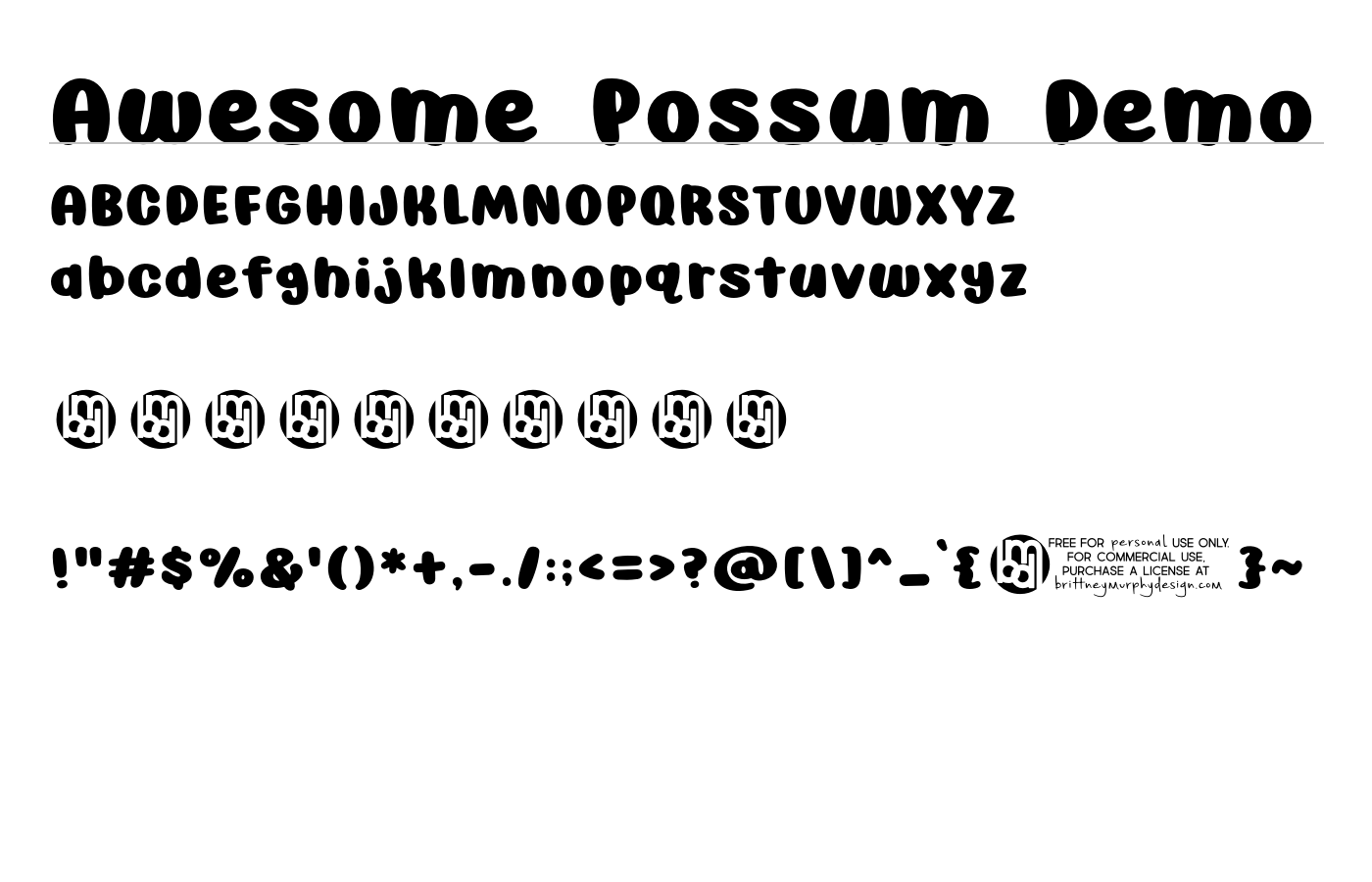
Awesome Possum Demo is a playful and bold sans serif font with rounded, bubbly letterforms that create a friendly and approachable vibe. Its thick, uniform strokes and whimsical style make it perfect for children’s materials, casual branding, and fun editorial projects where warmth and cheerfulness are key. This font shines best in headlines or logos that need an inviting and joyful personality.
Awesome Possum Demo Font
About Awesome Possum Demo Font